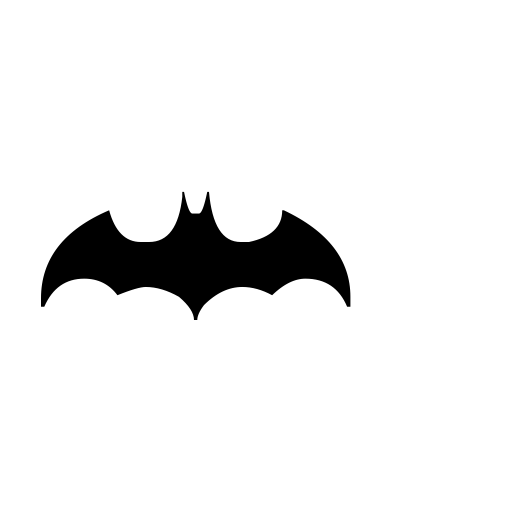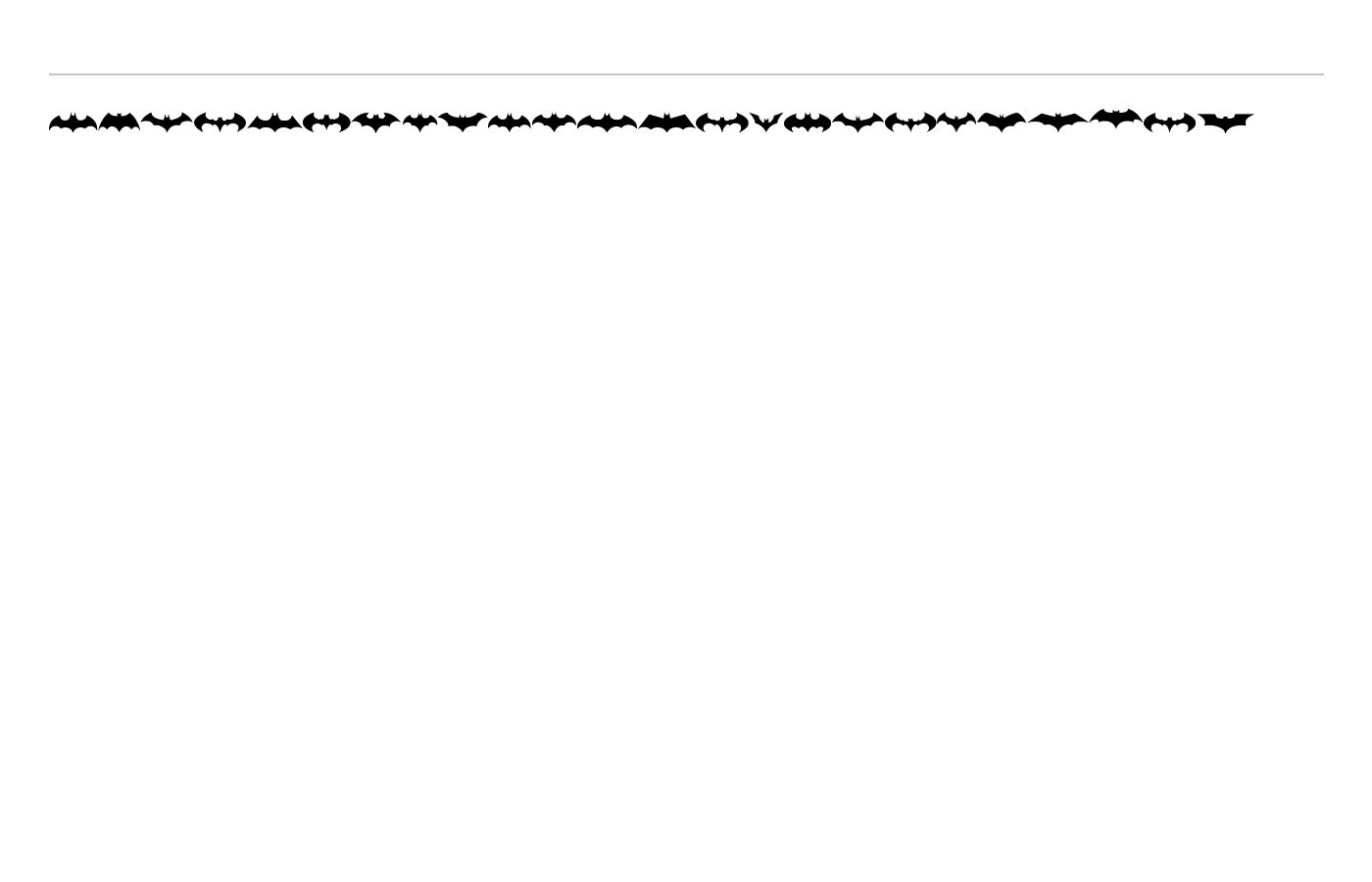
The "batman logo evolution tfb" font is a unique symbol typeface composed entirely of various stylized bat silhouettes resembling different Batman logos over time. It is a decorative, graphic font with a bold, solid black weight and evenly spaced shapes, making it best suited for thematic branding, fan art, or creative projects related to Batman or superhero culture. This font brings a playful yet iconic mood, ideal for eye-catching logos, posters, and novelty merchandise rather than standard text use.
batman logo evolution tfb Font
About batman logo evolution tfb Font